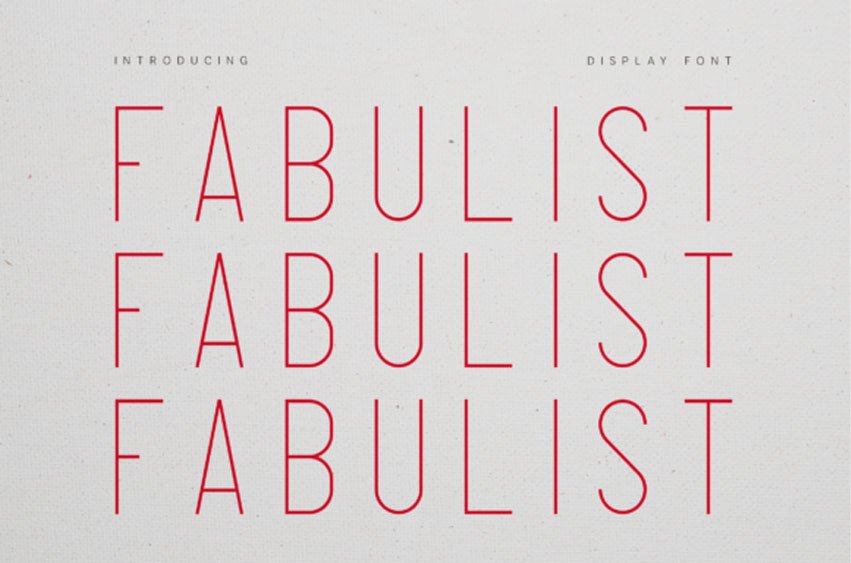
Fabulist Font
Fabulist Font is a refined modern display sans serif designed for clean typography, contemporary branding, and elegant editorial design.
Its minimalist structure makes Fabulist ideal for modern branding systems, fashion editorials, luxury packaging, logo design, magazine layouts, and creative visual identities. Whether used for branding, posters, editorial layouts, or digital design, Fabulist delivers a sleek, modern, and elegant typographic voice.